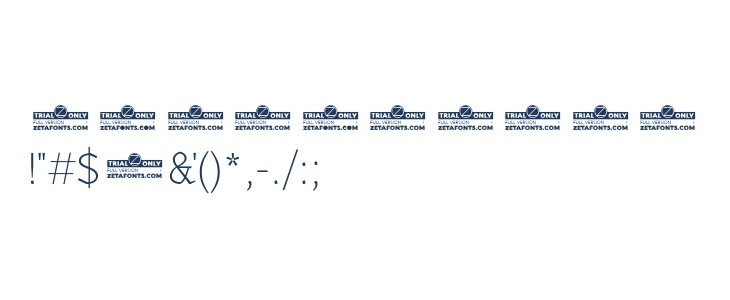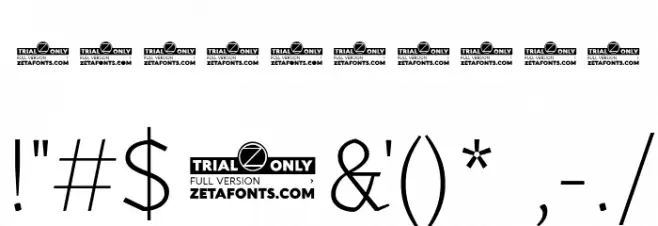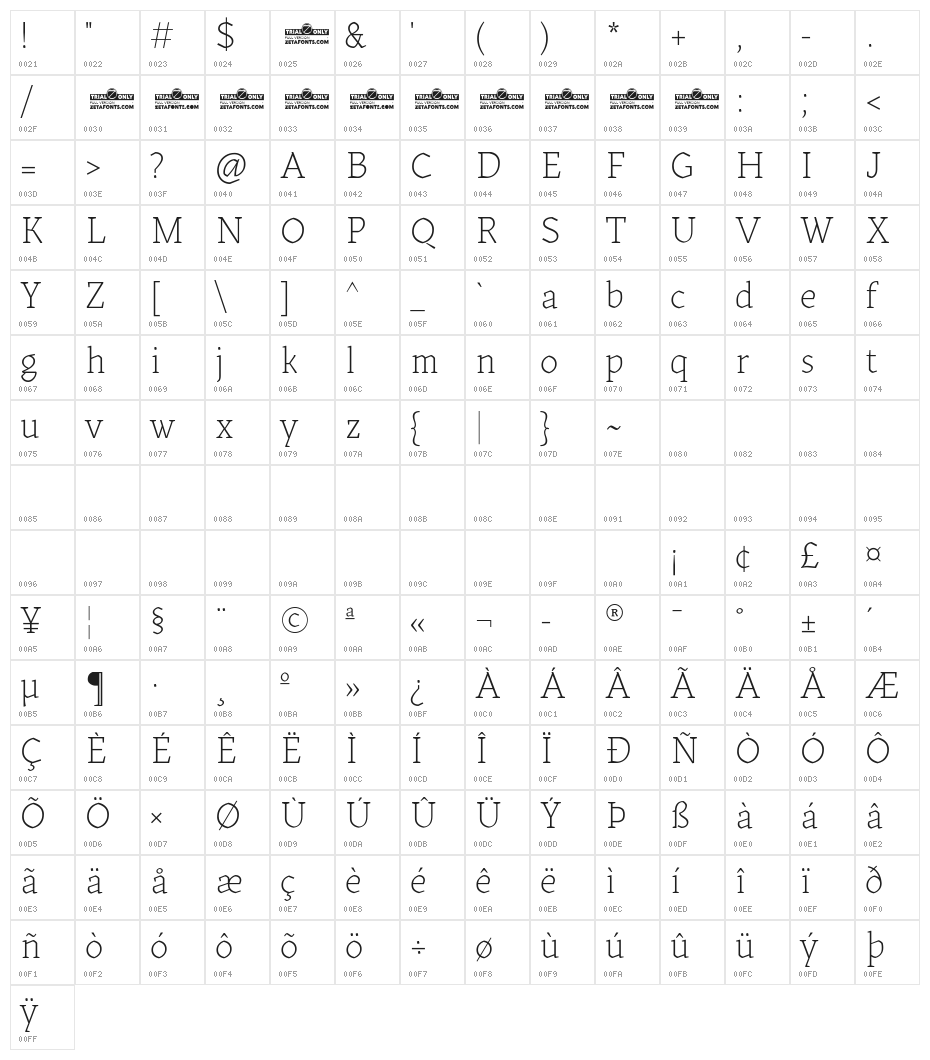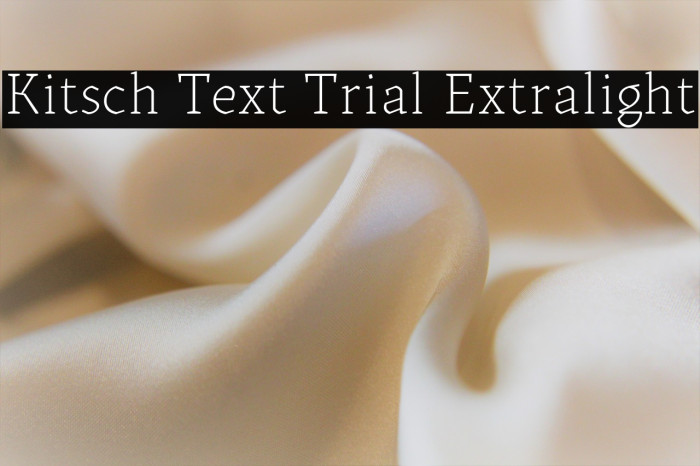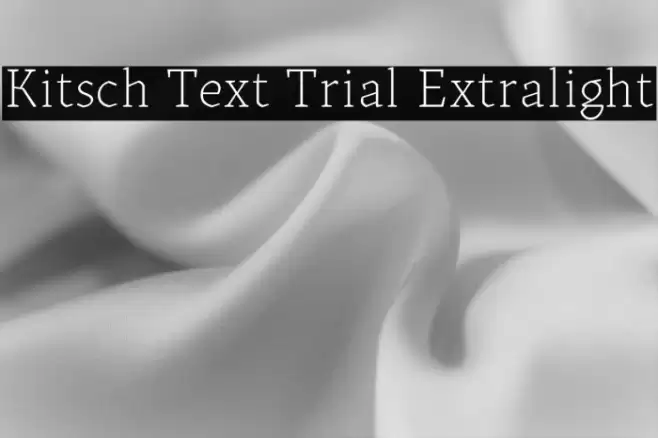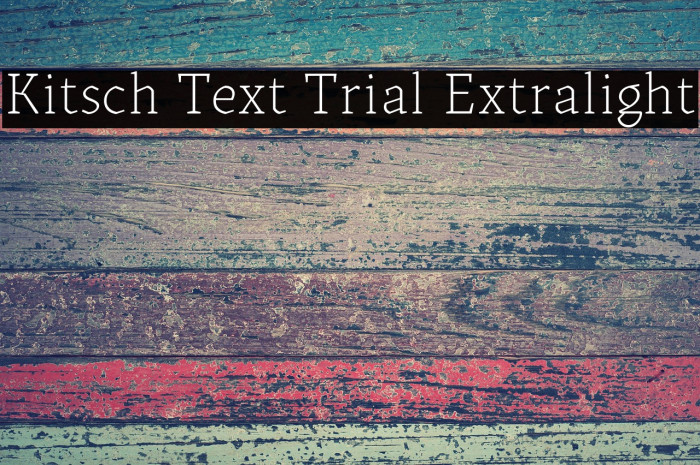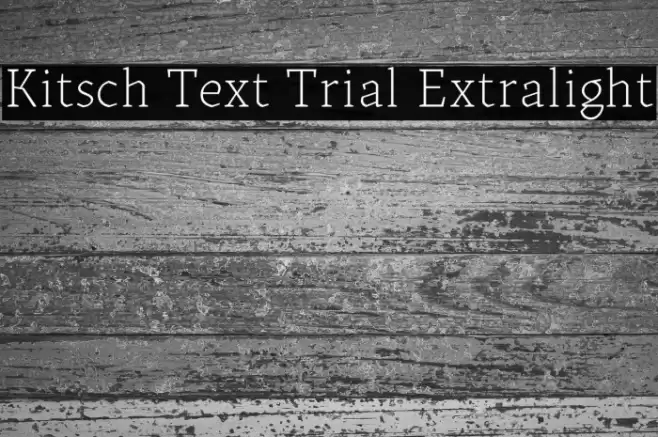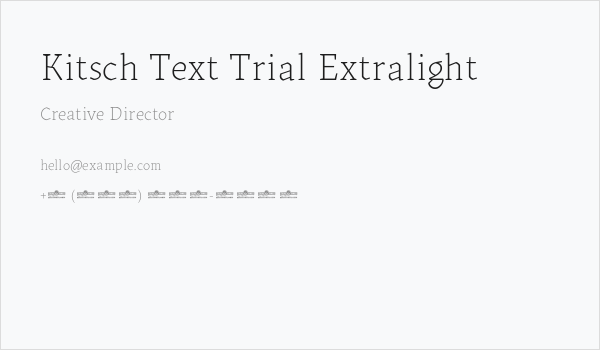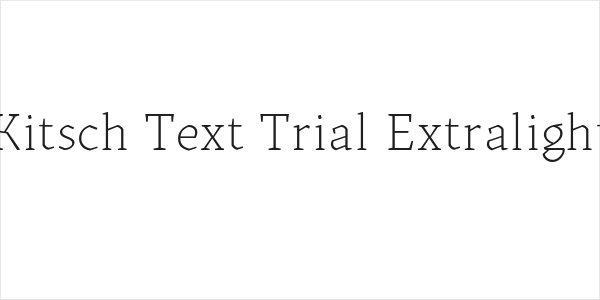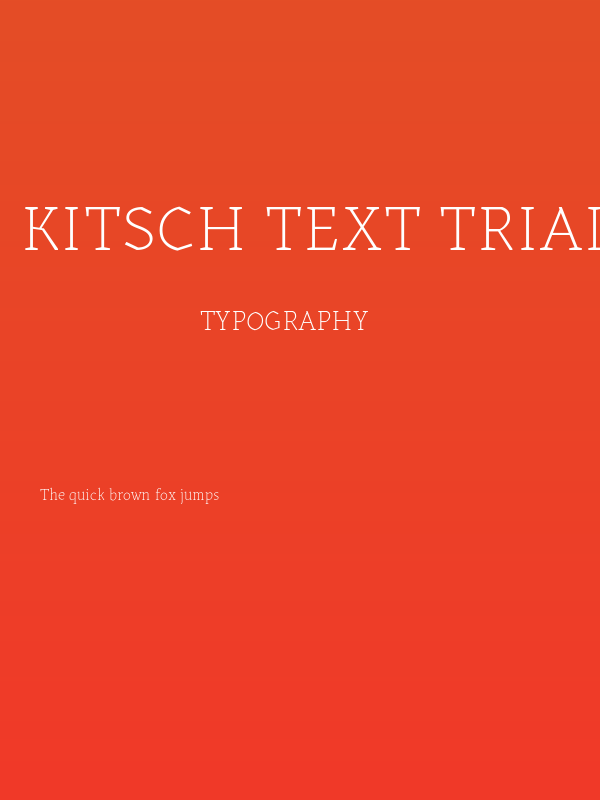
Kitsch Text Trial Extralight Font
Kitsch Text Trial Extralight Description
This font features a refined and elegant design with thin, elongated strokes that give it an airy and sophisticated appearance. The characters are well-proportioned, with a slight contrast between thick and thin lines, adding to its graceful aesthetic. The uppercase letters are tall and commanding, while the lowercase letters maintain a consistent flow with rounded edges and smooth curves. The numerals and special characters are crafted with the same attention to detail, ensuring a cohesive look across all text elements. This font is ideal for projects that require a touch of elegance and modernity.